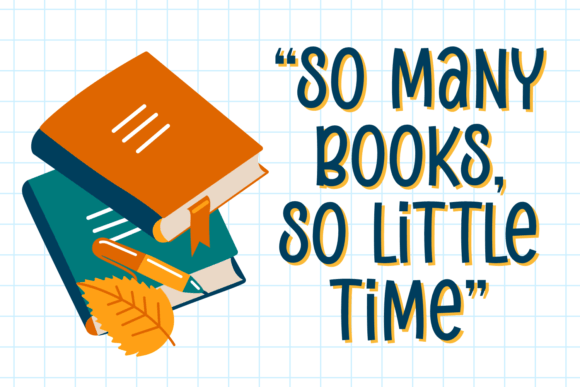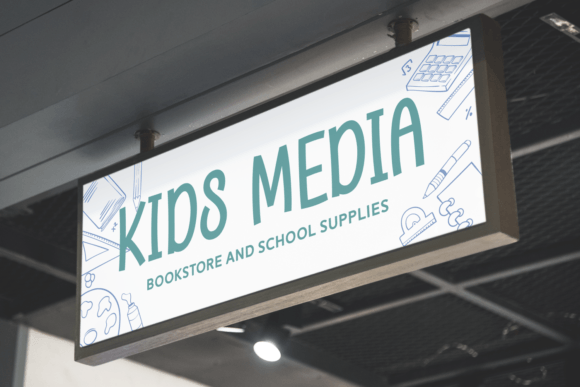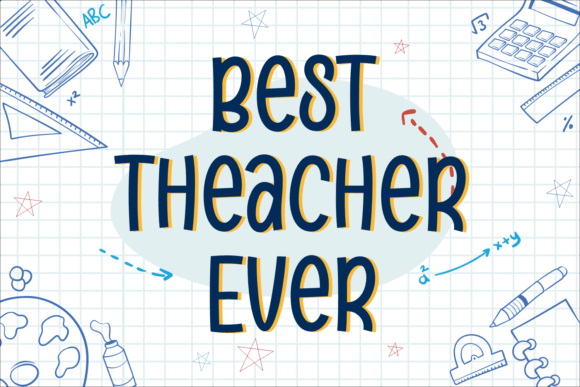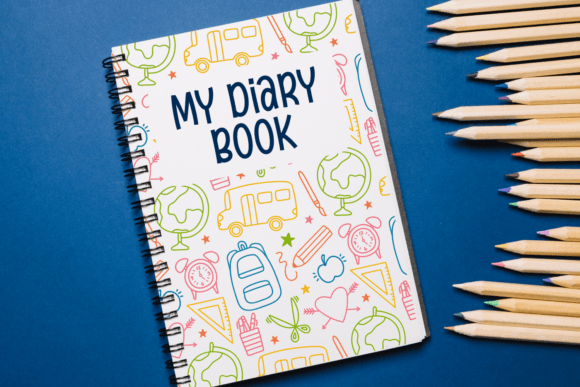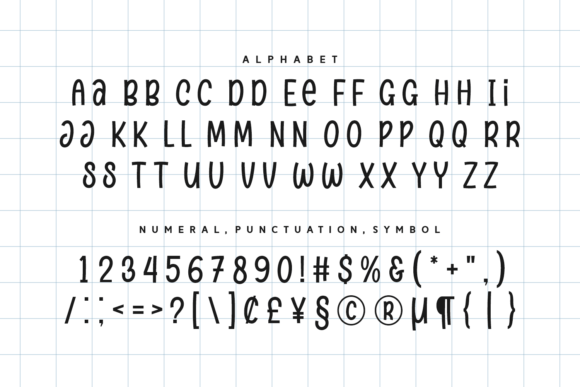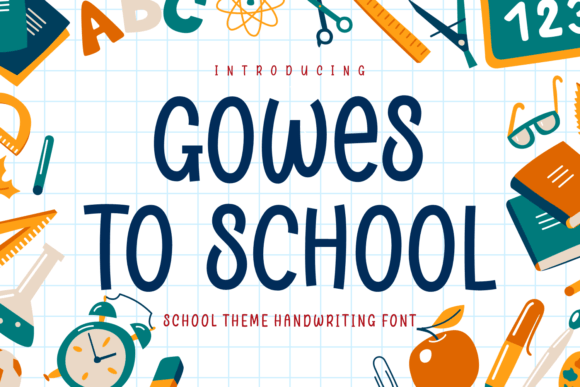
Gowes to School Font: Add a Happy Touch to Your Designs
Are you tired of using the same old fonts in your designs? Do you want to add a touch of happiness and fun to your creations? Look no further than the Gowes to School font! This delightful handwritten font is perfect for designers and crafters who want to bring a smile to their audience’s faces.
What is Gowes to School Font?
Gowes to School is a happy handwritten font that is designed to bring a sense of joy and playfulness to your designs. With its unique and quirky style, this font is sure to make your creations stand out from the crowd. Whether you’re working on a branding project, packaging design, logotype, headline, or wedding invitation, Gowes to School is the perfect choice.
Key Features of Gowes to School Font
- Handwritten style: Gowes to School has a beautiful handwritten style that gives it a personal and friendly touch.
- Happy and fun mood: This font is designed to bring a sense of happiness and fun to your designs, making it perfect for projects that require a playful touch.
- Versatile: Gowes to School can be used for a wide range of design projects, including branding, packaging, logotype, headline, wedding invitation, and more.
- Easy to read: Despite its playful style, Gowes to School is easy to read, making it perfect for body text and headlines.
Uses of Gowes to School Font
Gowes to School is a versatile font that can be used for a wide range of design projects. Here are some ideas to get you started:
- Branding: Use Gowes to School to create a unique and memorable brand identity that stands out from the competition.
- Packaging design: Add a touch of happiness and fun to your packaging designs with Gowes to School.
- Logotype: Create a custom logotype that showcases your brand’s personality with Gowes to School.
- Headline: Use Gowes to School to create eye-catching headlines that grab attention.
- Wedding invitation: Add a touch of whimsy and romance to your wedding invitations with Gowes to School.
Benefits of Using Gowes to School Font
Using Gowes to School font has several benefits, including:
- Unique and memorable designs: Gowes to School helps you create unique and memorable designs that stand out from the competition.
- Emotional connection: The happy and fun mood of Gowes to School helps create an emotional connection with your audience.
- Versatility: Gowes to School can be used for a wide range of design projects, making it a great addition to your font library.
Tips for Using Gowes to School Font
Here are some tips for using Gowes to School font effectively:
- Use it for headlines and titles: Gowes to School is perfect for headlines and titles, where you want to grab attention and create a lasting impression.
- Pair it with other fonts: Experiment with pairing Gowes to School with other fonts to create a unique and interesting contrast.
- Use it for body text: While Gowes to School is perfect for headlines, it can also be used for body text to create a friendly and approachable tone.
| Font Name | Gowes to School Font |
| Author | Andrian Dehasta |
Gowes to School font is a delightful handwritten font that can add a touch of happiness and fun to your designs. With its unique and quirky style, this font is perfect for designers and crafters who want to create memorable and engaging designs. Whether you’re working on a branding project, packaging design, logotype, headline, or wedding invitation, Gowes to School is the perfect choice. So why not give it a try and see how it can elevate your designs?